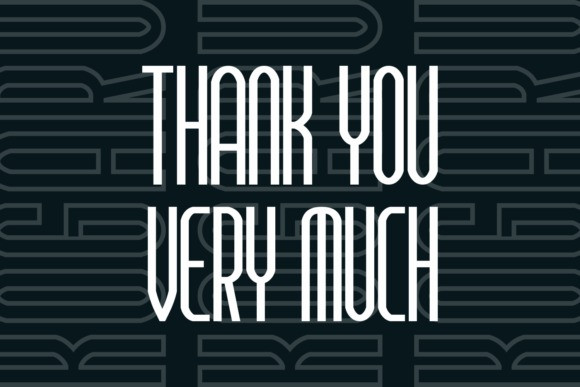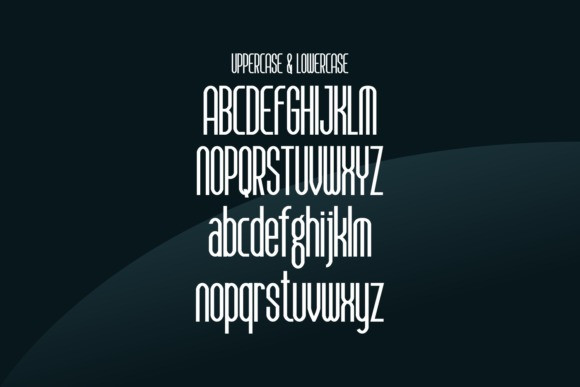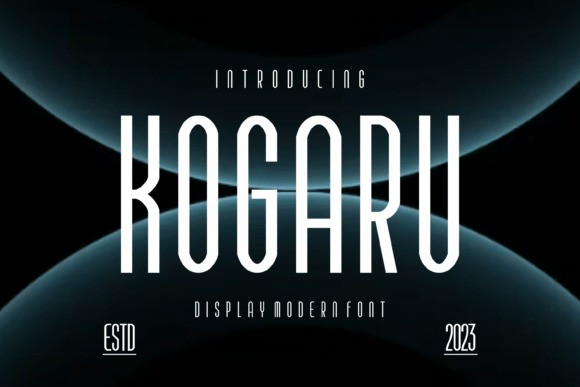
Kogaru Font
Kogaru Font is an incredibly unique and modern display font. Masterfully designed to become a true favorite, this font has the potential to bring each of your creative ideas to the highest level